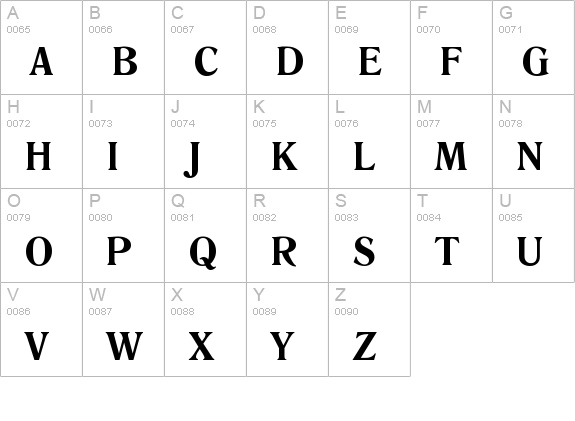
Rookie-Bold is a strong, high-contrast variant in the Rookie typeface family \xE2\x80\x94 well suited to headlines, attention-grabbing titles, and strong calls-to-action.
Rookie-Bold font is a modern and stylish typeface that exudes confidence and boldness. Its sleek lines and strong presence make it perfect for making a statement in your design projects. The bold weight of this font commands attention and adds a touch of sophistication to any text. Whether you're creating a poster, logo, or website design, Rookie-Bold font will elevate your work to the next level. Best of all, Rookie-Bold font is available for free download at FontsMarket.com. You can easily access this versatile font and use it in your projects without any cost. Don't miss out on the opportunity to enhance your designs with the striking appeal of Rookie-Bold font. Download it today and unleash your creativity!